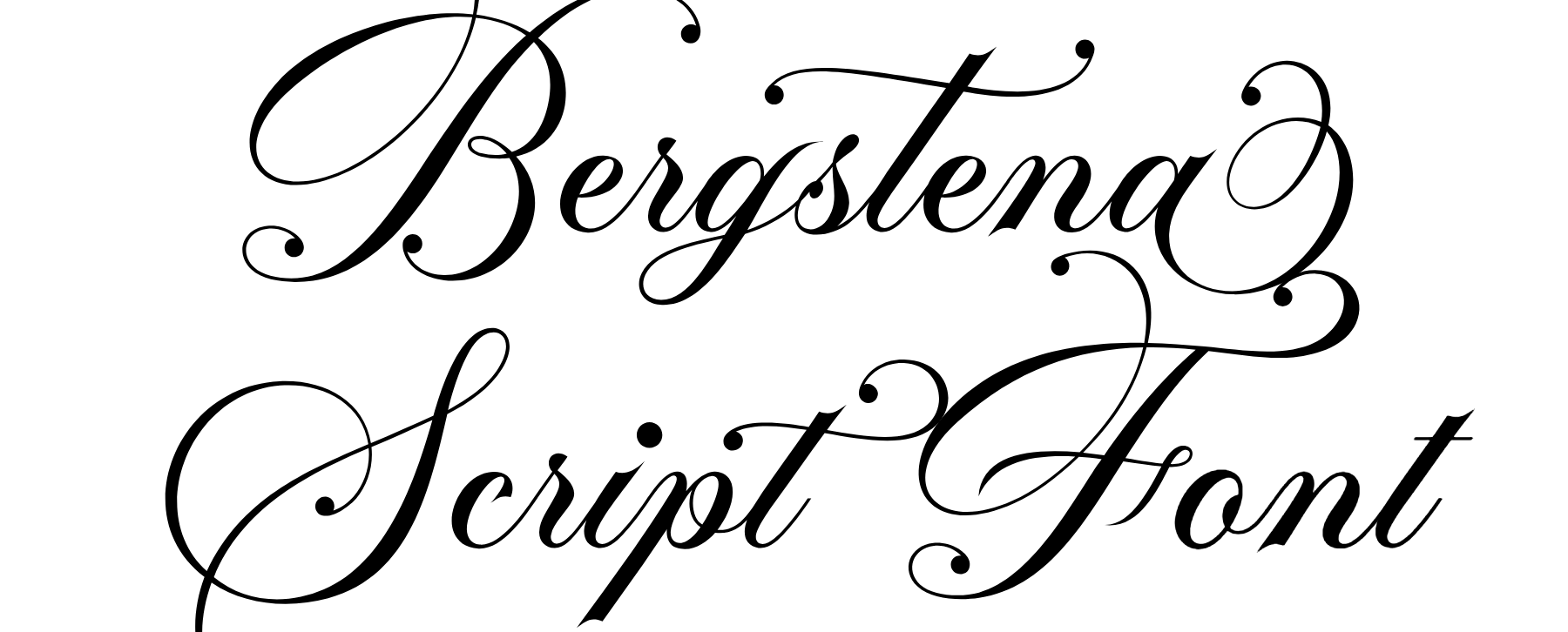
Bergstena Script
Bergstena Script is a calligraphy font designed by Mans Greback and published by Mans Greback AB (2025). Its flowing, pen-made letters give names and short phrases a personal, polished look. You can download it for free and test it with your own words in the preview above.
- Glyphs: 1,148
- OpenType features: Ligatures (including optional ones), contextual alternates, swashes, 20 stylistic sets, start and end letter forms, small caps, old-style numbers and fractions
What You Can Type With Bergstena Script
With complete upper and lowercase letters and all ten digits, Bergstena Script is ready for real wording, not just a single headline. Common punctuation such as &, !, ? and @ is included as well. It also has the accented letters you need for Spanish, French, German, Portuguese and Italian. Of its 1,148 glyphs, about 424 are not on your keyboard at all. That is where the alternates explained below live.
Where Bergstena Script Works Best
Designers usually reach for fonts like Bergstena Script when they're making wedding invitations, certificates and elegant quotes. Its lowercase letters are small compared to the capitals, so set it a size or two bigger than usual. Script fonts read best in short bursts, so keep it to names, titles and one-line quotes. Skip all caps: script capitals are drawn to start a word, not to fill one.
Who designed Bergstena Script font?
Does Bergstena Script support accented letters?
Yes. Bergstena Script includes the accented letters needed for Spanish, French, German, Portuguese and Italian, so it works for more than just English.